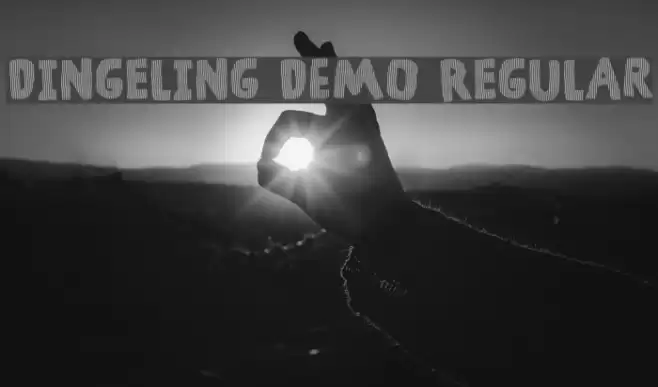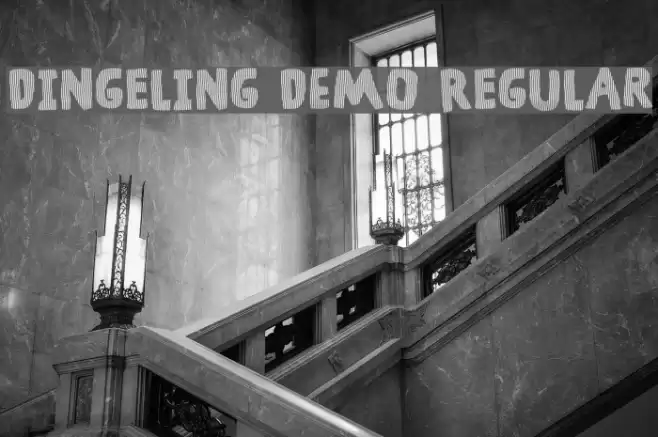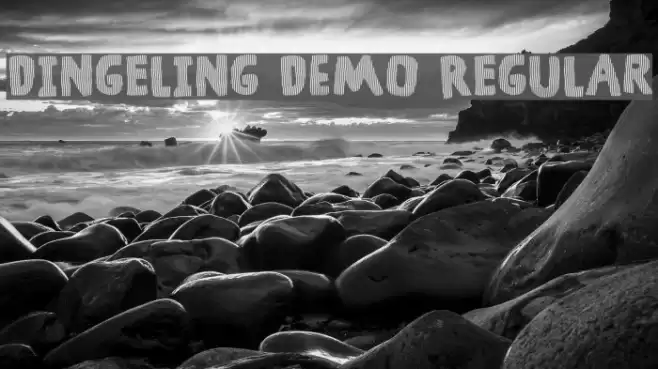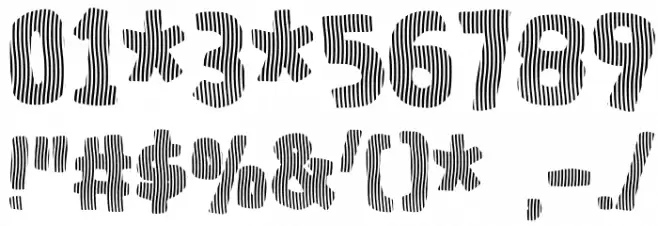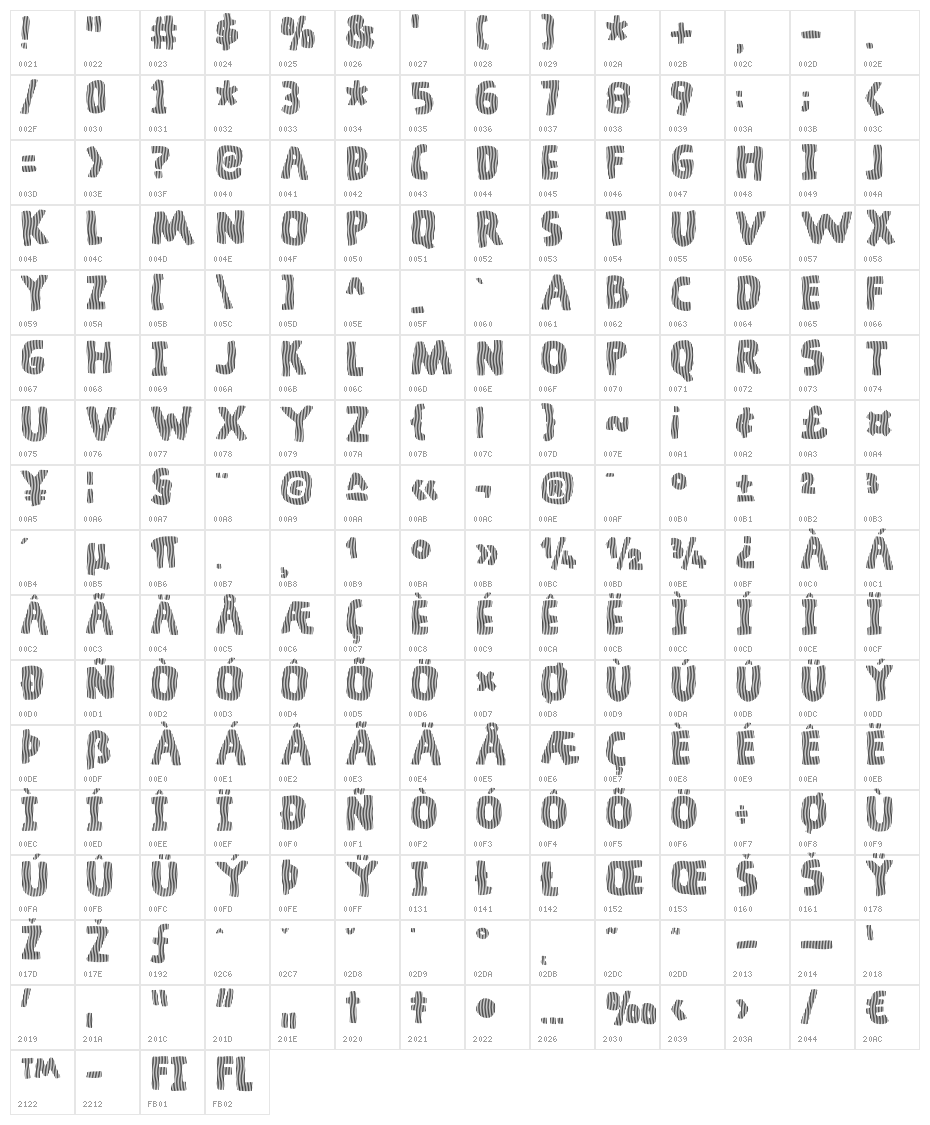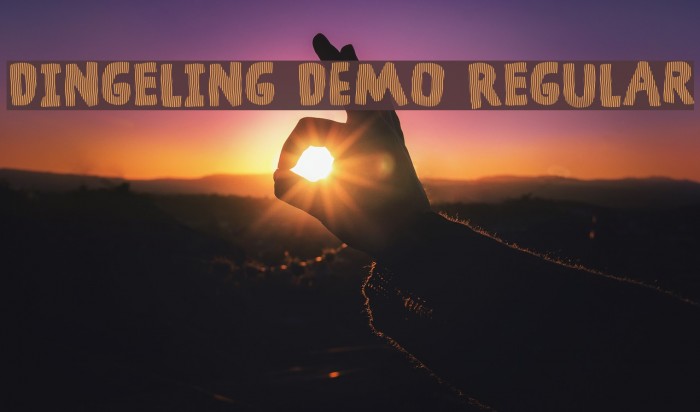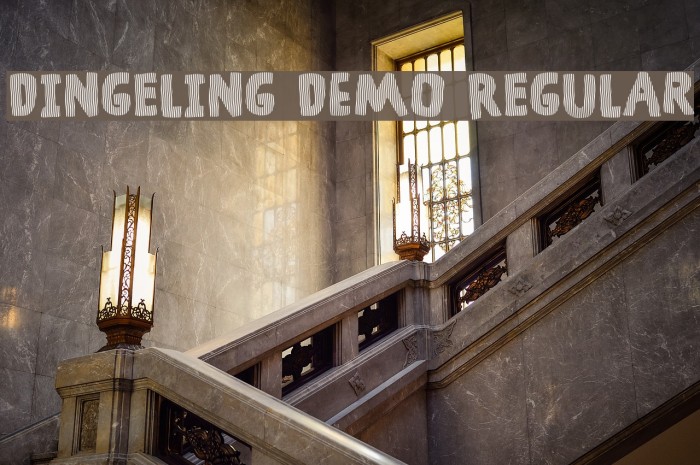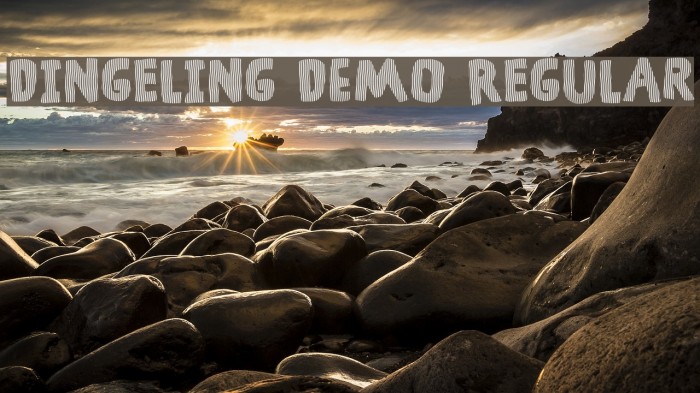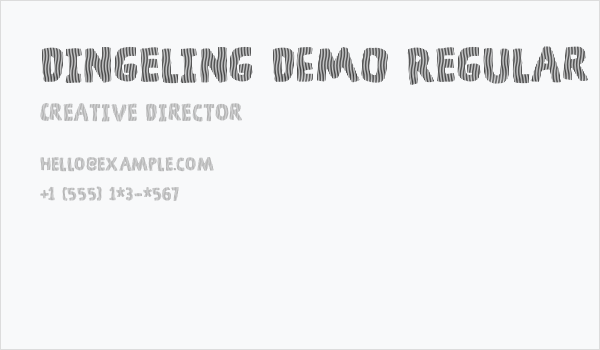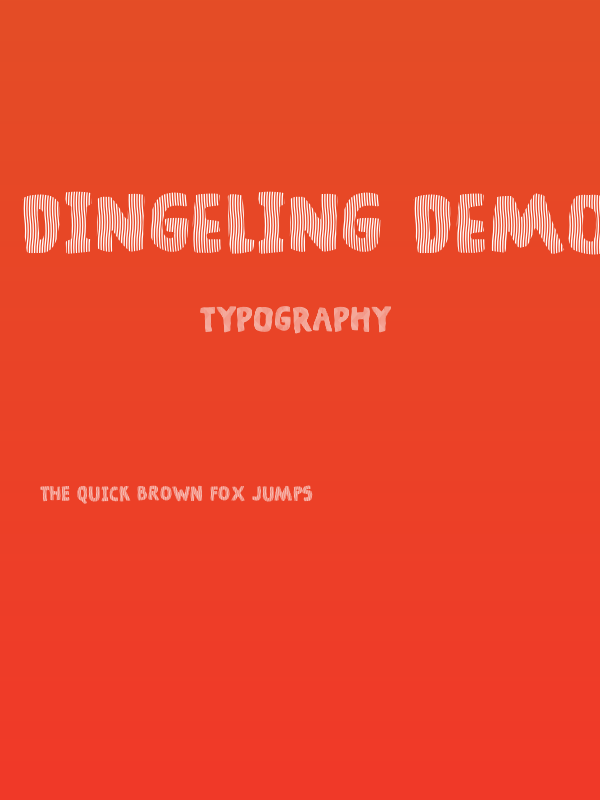
Dingeling DEMO Regular Font
Dingeling DEMO Regular Description
This font features a unique and playful design with a striped pattern running through each character, creating a dynamic and eye-catching effect. The letters are bold and slightly rounded, giving them a friendly and approachable appearance. The consistent stripe pattern adds a sense of movement and rhythm, making it ideal for creative and modern design projects. The uppercase and lowercase letters maintain a uniform style, while the numerals and special characters are equally distinctive, ensuring versatility across various applications.
A bold, striped font with a playful and dynamic design from Uncategorized fonts.
- Proposed Projects: Ideal for posters, branding, packaging, and any project that requires a bold and creative touch.